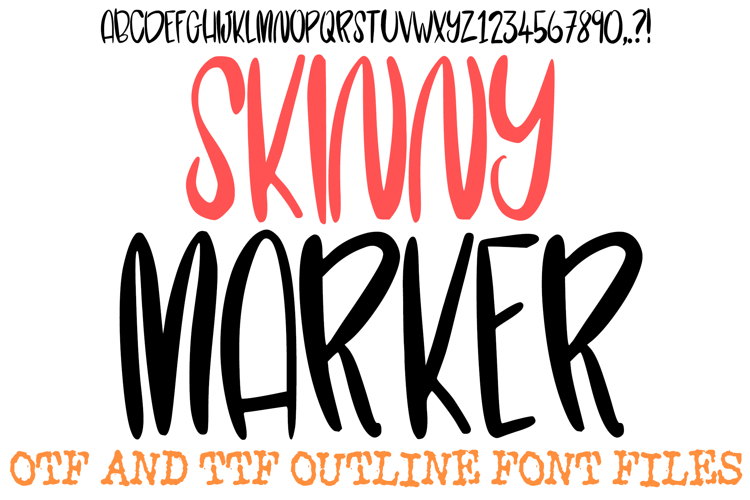
Skinny Marker Font Pen Doodle Lettering Cartoon ABC OTF
Elevate your designs with the elegant flow of the Skinny Marker Font! This display alphabet features elongated, slender characters with a natural hand-inked flow and clean terminal points, capturing the look of a fine-tip marker. It is the perfect choice for minimalist branding, aesthetic social media headers, digital journaling, and creative storytelling projects that require an artisan touch.
The tall silhouette makes your text stand out, providing a sense of sophisticated height without sacrificing legibility. Whether you are creating clean modern wedding invitations or designing aesthetic stickers for a digital planner, the Skinny Marker Font delivers a professional yet personalized look instantly.
Tall Slim Silhouette: Every character features an elongated, slender shape, giving your words a modern, minimalist presence.
Natural Ink Aesthetic: The clean, hand-drawn lines provide a genuine, hand-inked look that avoids the stiffness of standard digital fonts.
Versatile Modern Feel: Perfect for boho branding, digital planners, GoodNotes stickers, and sophisticated event signage.